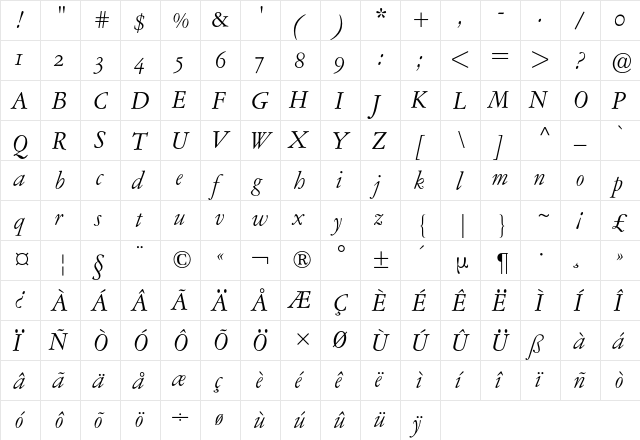
Garamont Amsterdam Expert BQ Regular Font Preview
Garamont Amsterdam Expert BQ Regular
Design Context for Garamont Amsterdam Expert BQ Typeface
Garamont Amsterdam Expert BQ offers clean, dependable letterforms without strong stylistic allegiance, making it a practical choice for designers who need flexibility.
Pro Tip: Use Garamont Amsterdam Expert BQ in both headline and body roles to test its range before committing to a single application.